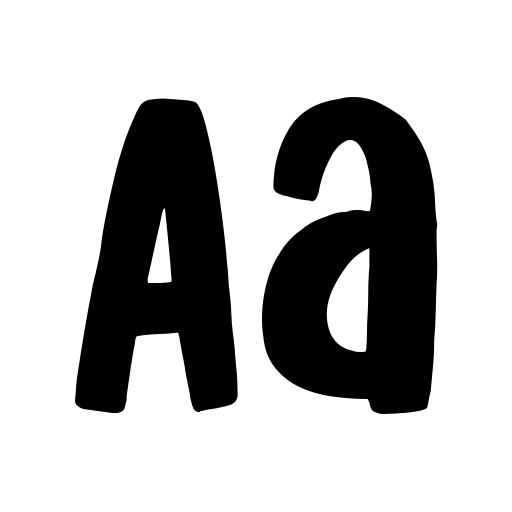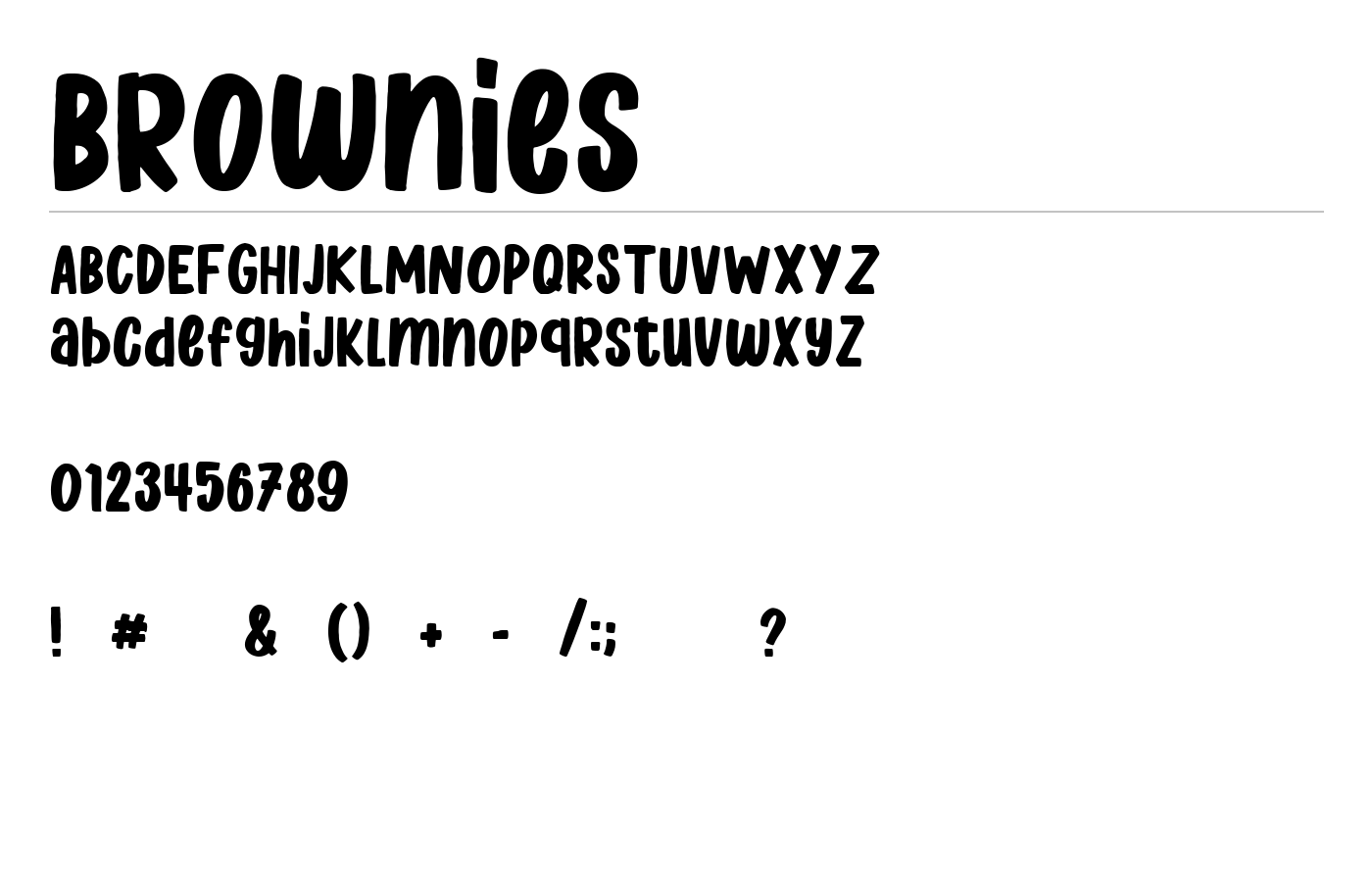
Brownies is a bold, playful sans serif font with a hand-drawn, slightly irregular style that gives it a friendly and casual feel. Its rounded, chunky letterforms and moderate contrast make it ideal for design projects that want to convey warmth and approachability, such as children’s products, informal branding, or fun headlines. This font works best in display settings where its unique personality can shine and engage viewers with a lively, handcrafted touch.
Brownies Font
About Brownies Font
| Font family | Brownies Font |